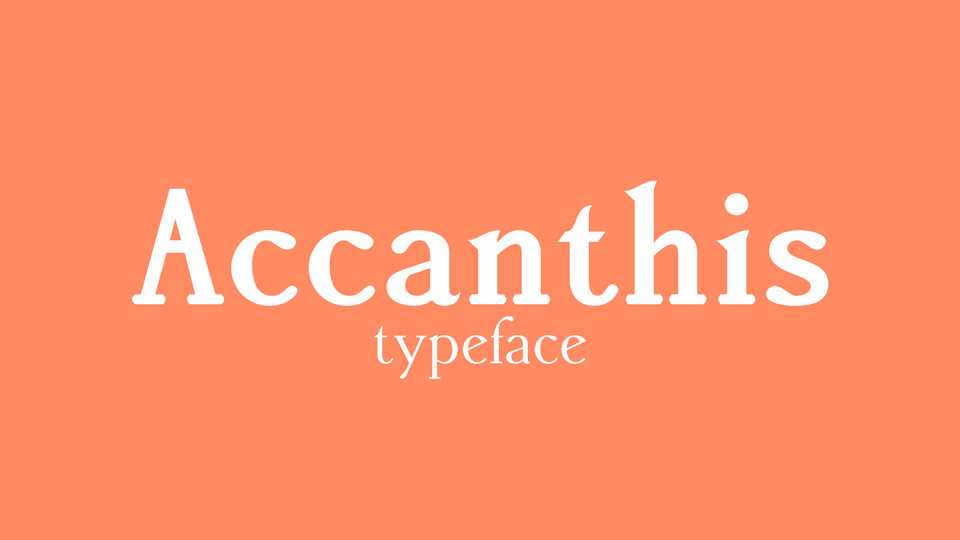
Download Accanthis typeface, a serif font family in three widths and two weights each, particularly suitable for text, display, or neat and stylish presentations.
Designer: Arkandis Digital Foundry